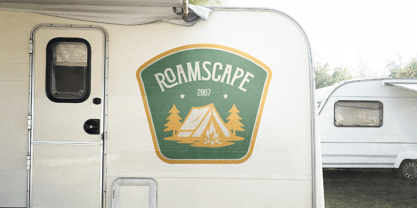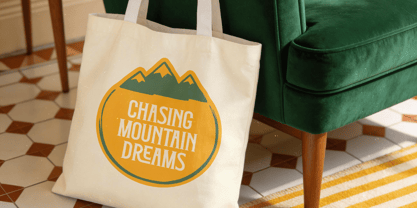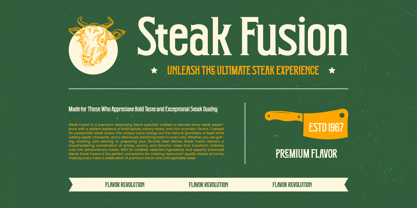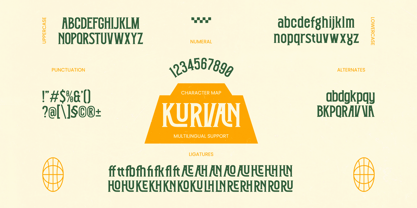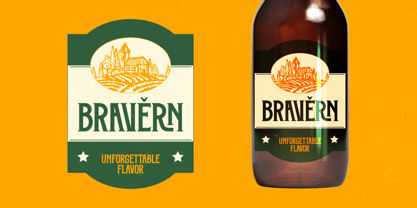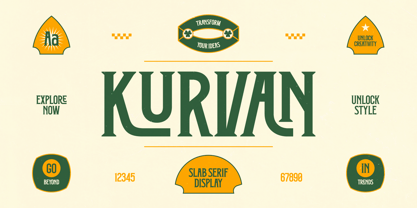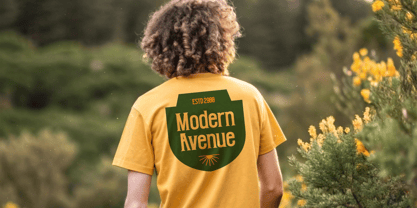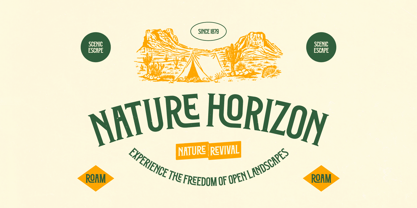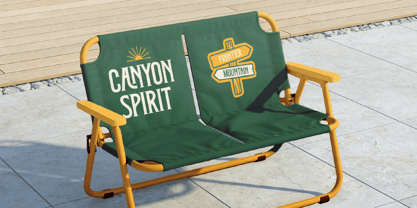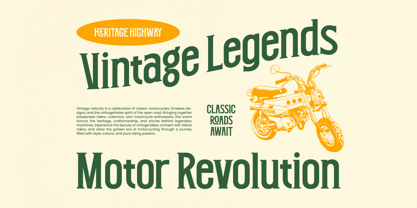
Kurvan
Die Schriftfamilie Kurvan wurde von Heru Utama Putra entworfen und von Timelesstype Studio veröffentlicht. Kurvan enthält 2 Stile und Familienpaketoptionen. Mehr über diese Familie
Kurvan captures the spirit of timeless adventure, blending rugged durability with a sophisticated editorial edge. It is a typeface designed for those who seek to tell stories that resonate with both strength and elegance across various mediums.
Inspired by the classic heritage of outdoor exploration and the golden age of motor culture, this font draws from vintage signage and historical brand identities. It evokes the feeling of a crisp morning in the desert or a long ride down an open highway where every curve tells a unique story.
This modern serif display offers a unique balance of weight and grace, making it a powerhouse for luxury typography projects. With its high-contrast serif details and sturdy slab construction, it functions as a versatile editorial font that delivers a significant branding impact.